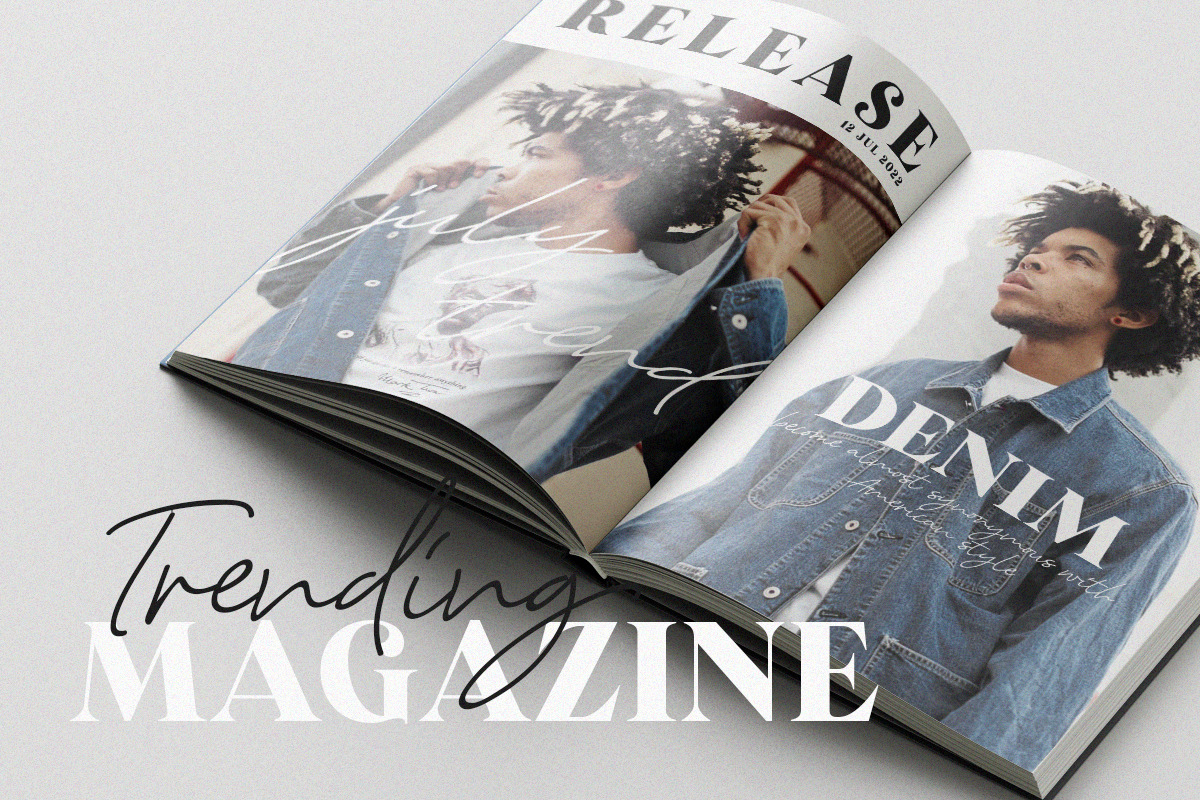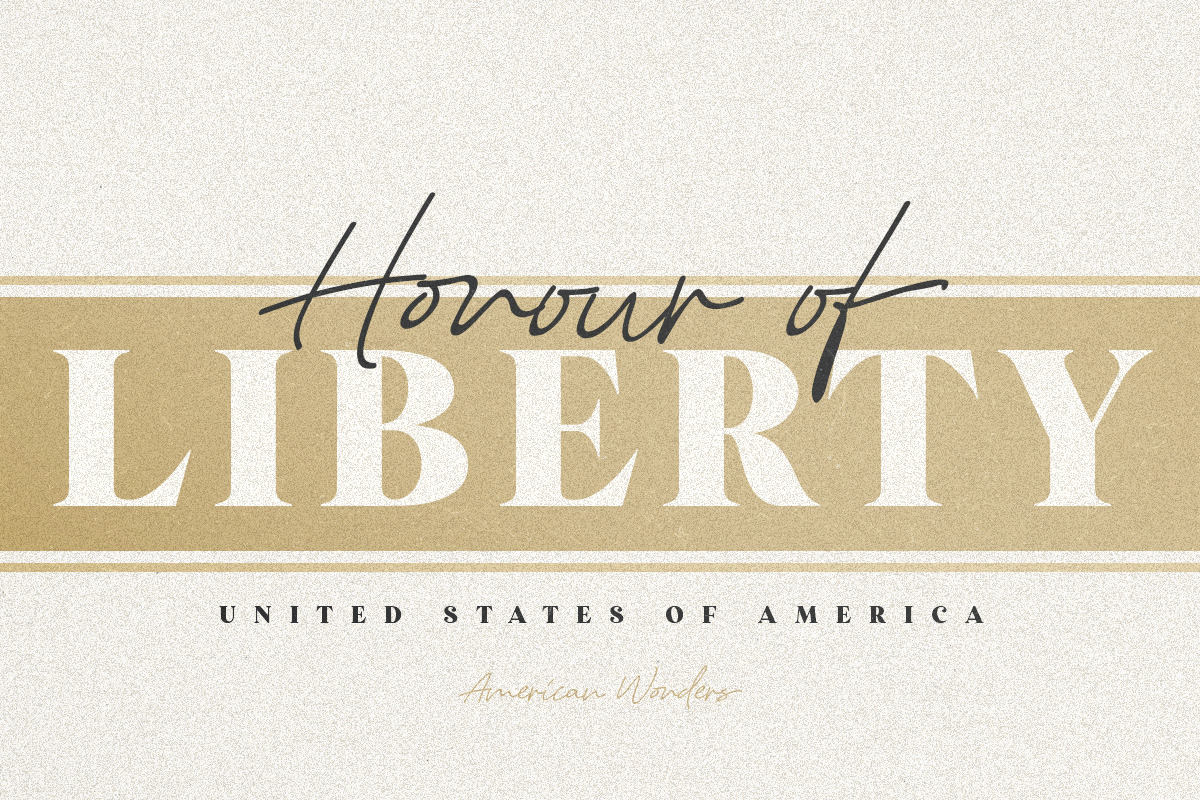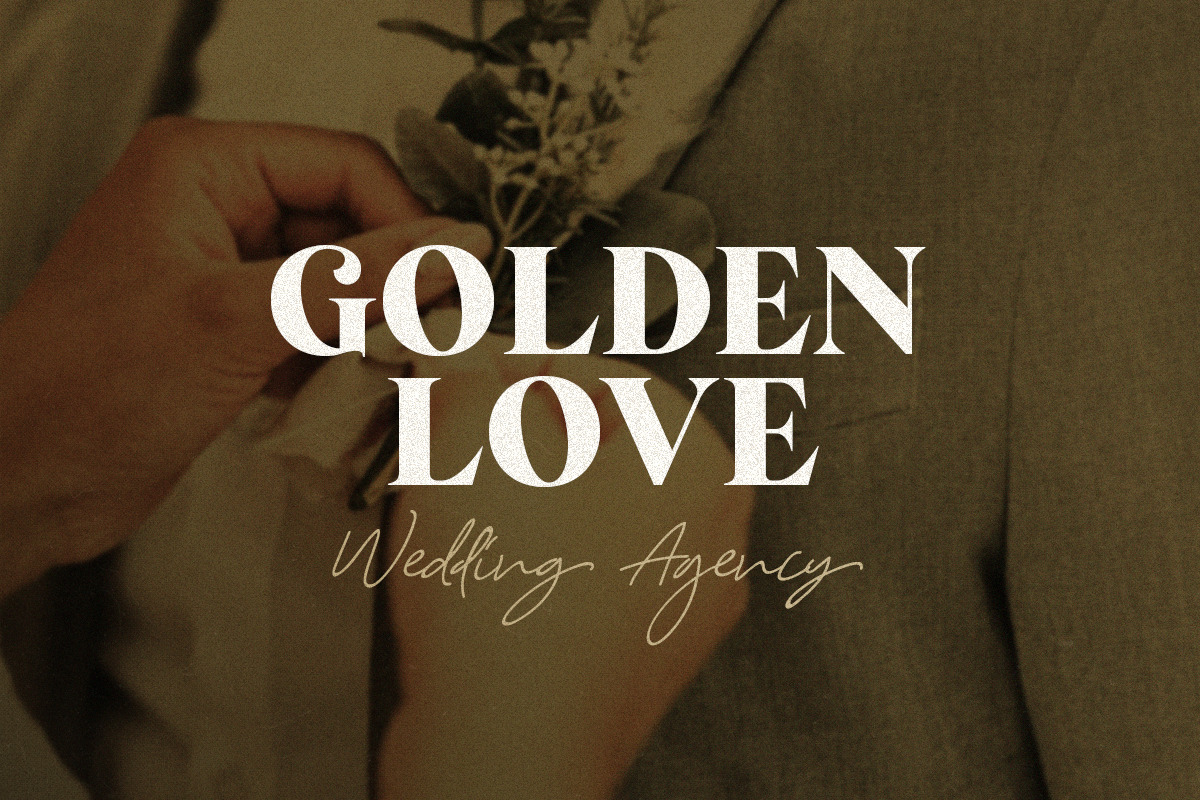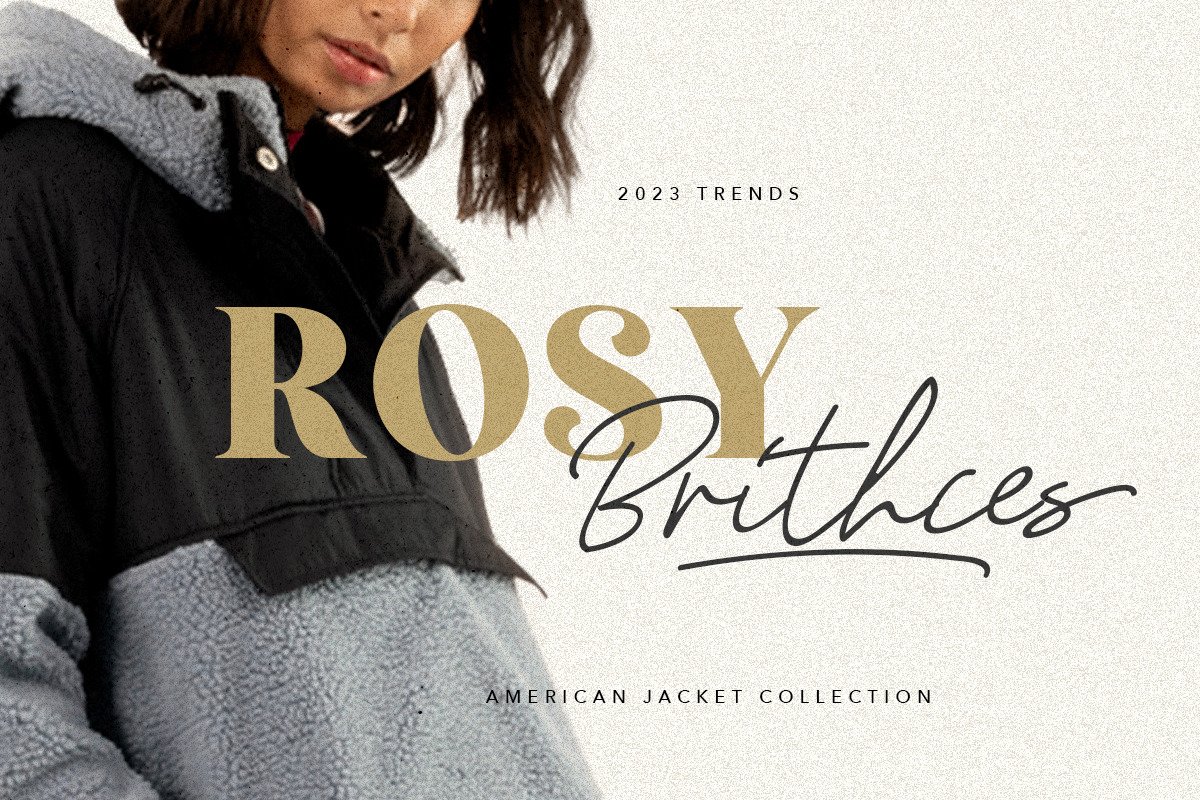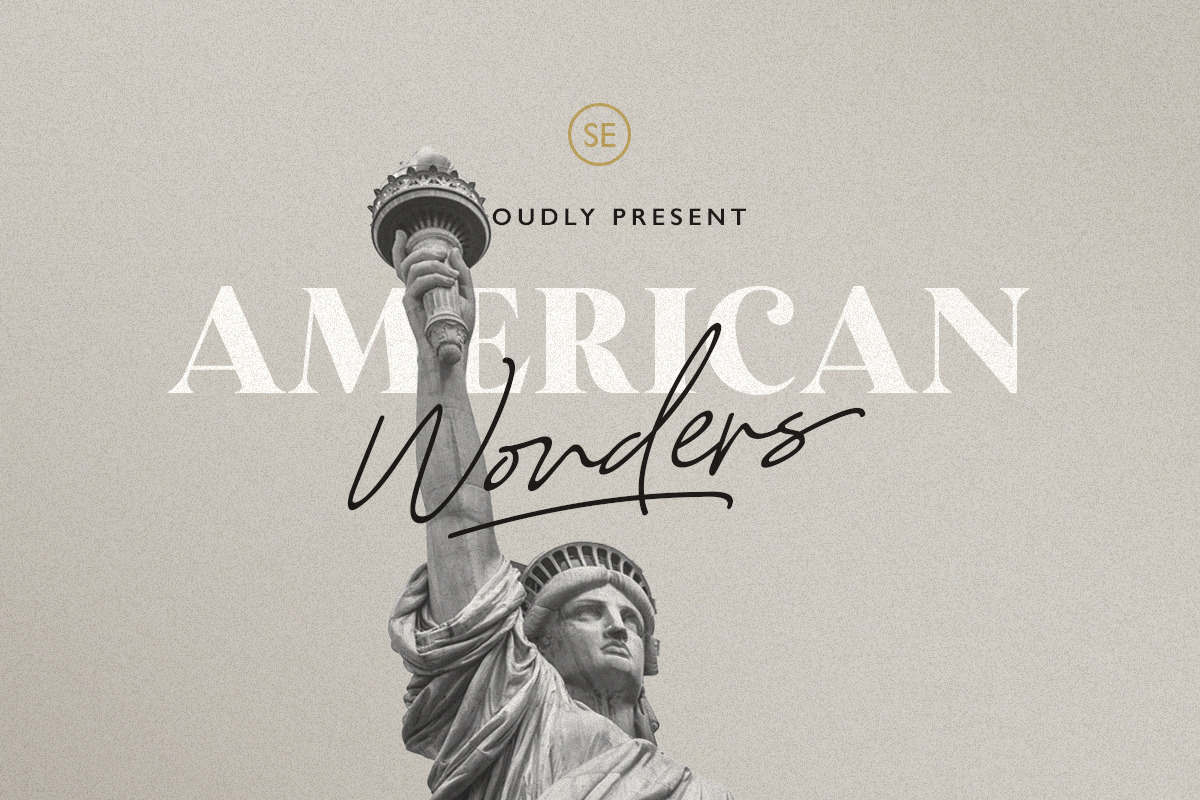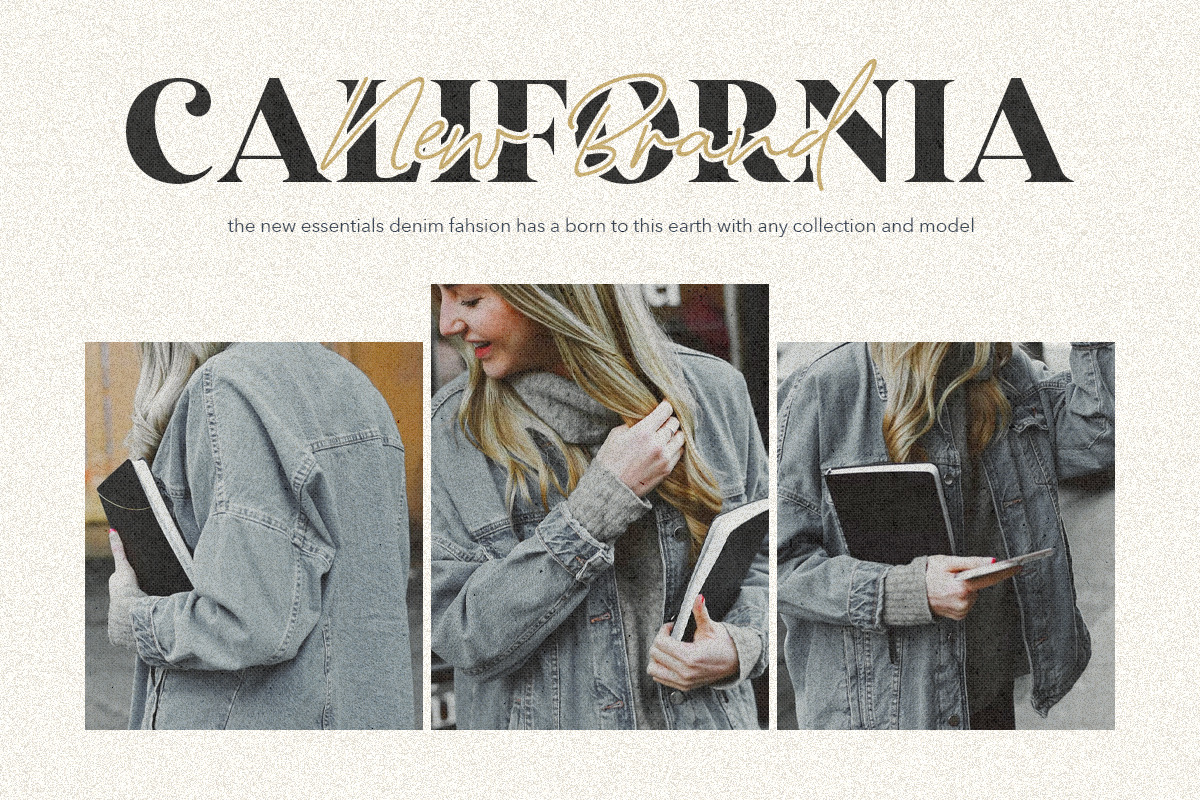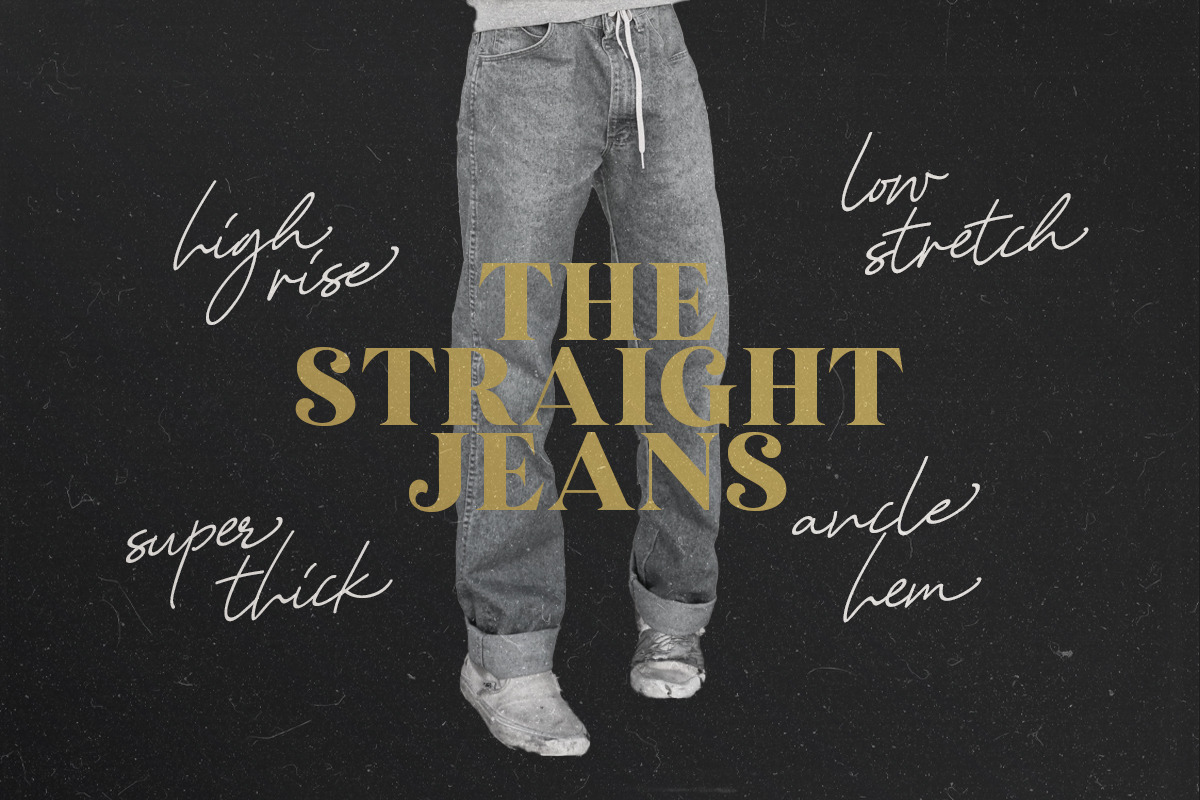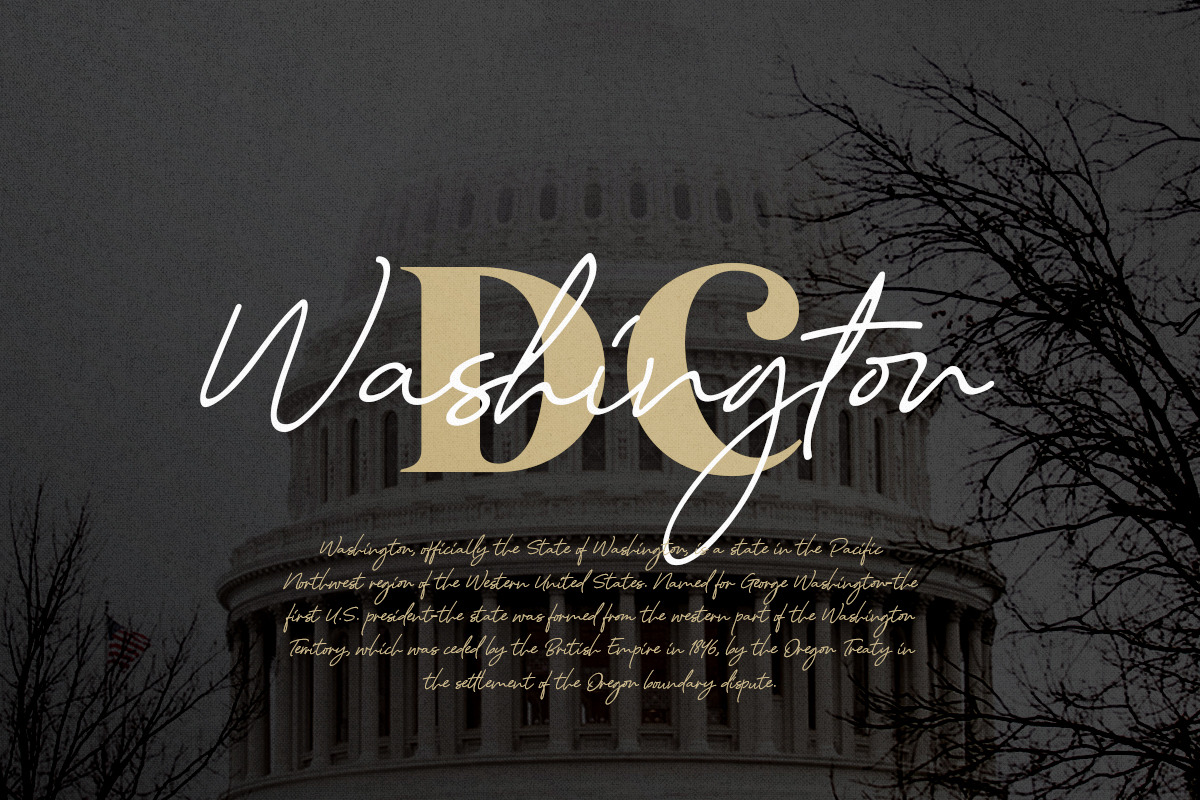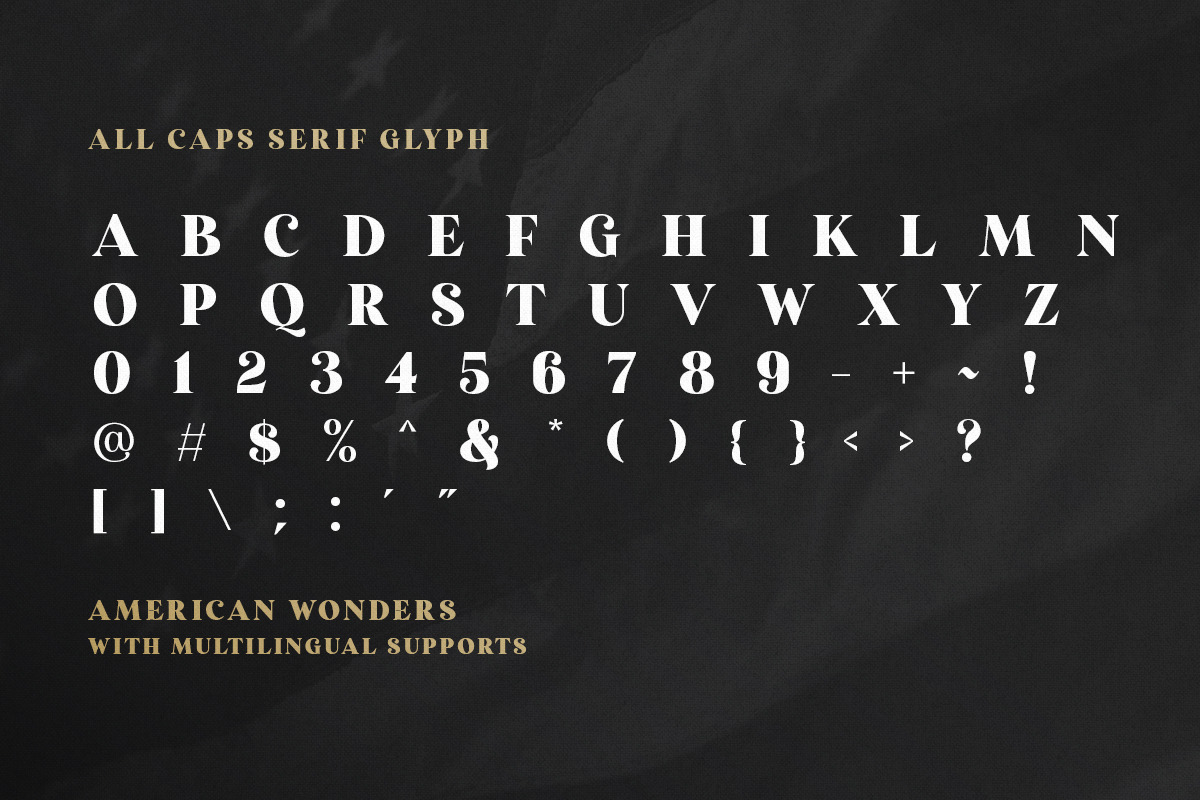
American Wonders - FONT DUO
Introducing, American Wonders - Font Duo!
American Wonders is a package of two fonts containing signature script and bold serif. This versatile fonts that you can use for any project. This bold serif is strong and powerful while the signature script is soft and authentic hand writing. This font also support language!